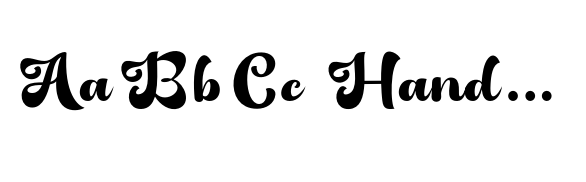
The Amgesta
by TM Type
The The Amgesta Font Family was designed by Teuku Bustami and published by TM Type. The Amgesta contains 1 styles. More about this family
The Amgesta is a Vintage retro font inspired by retro typography and lettering in the 60s and 80s combined with a bold typography style.
Designers: Teuku Bustami
Foundry: TM Type
My name is Teuku Bustami and designed my font with the name TM Type. founded in 2021, TM Type is a font design studio based in Aceh, Indonesia, now I am pursuing my new passion completely from my home studio. I draw letters and I love all forms of creativity. I love creating beautiful things and experimental typography and constantly learning new things.I launched my first font at the end of 2021. Since then I changed my frelance business to Type foundry.